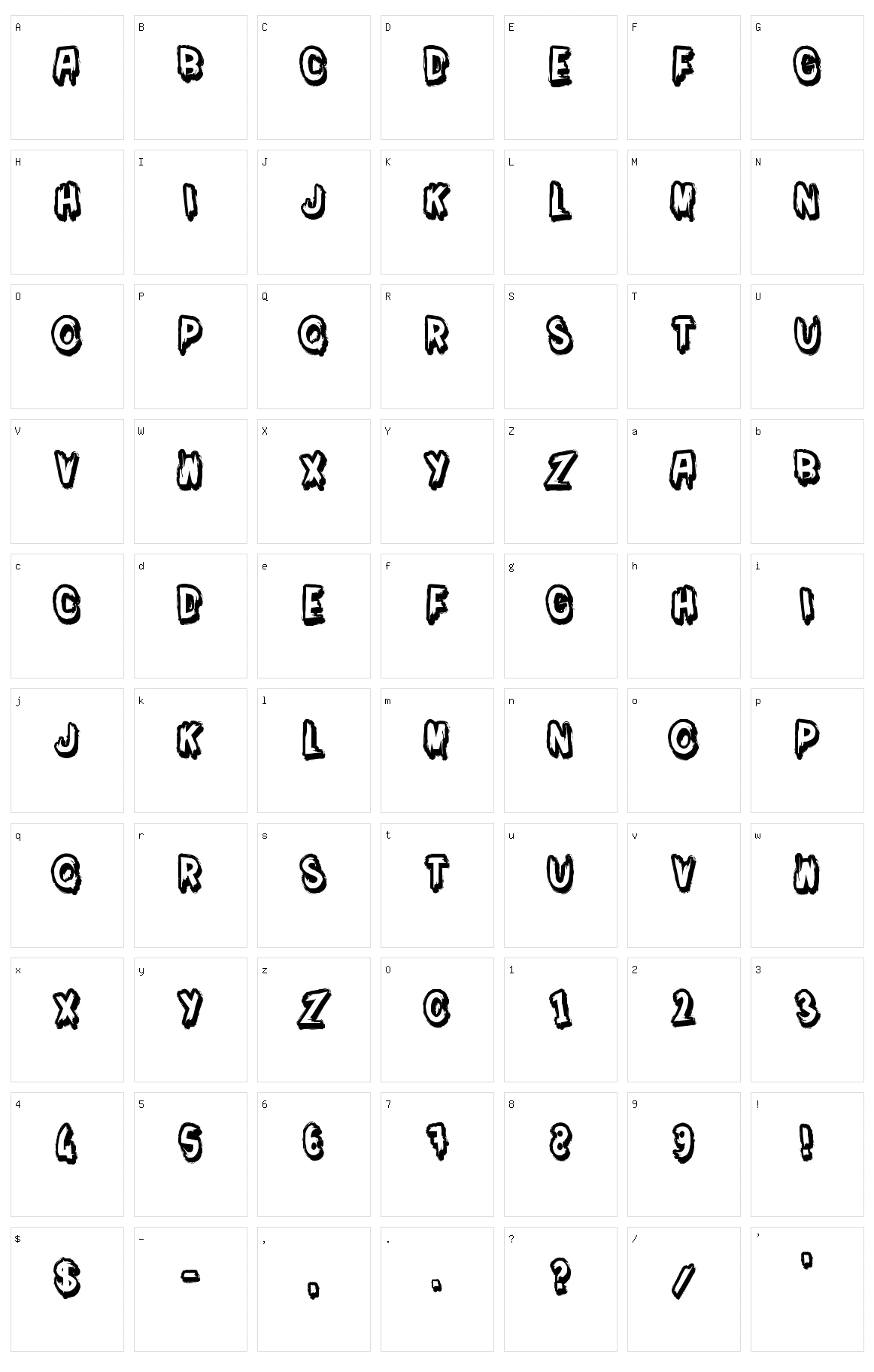
The free font Moi je men fous is carefully designed by Qkila, showcasing a thoughtful balance of creativity and usability and falls under the Horror font style. When you download the ZIP file, it contains only 83.37 KB of font files, making it lightweight and quick to download. Please review the license details below to understand permitted usage and distribution rights. If license information is not available, we recommend using this font for personal projects only or contacting the author directly for commercial usage permissions.